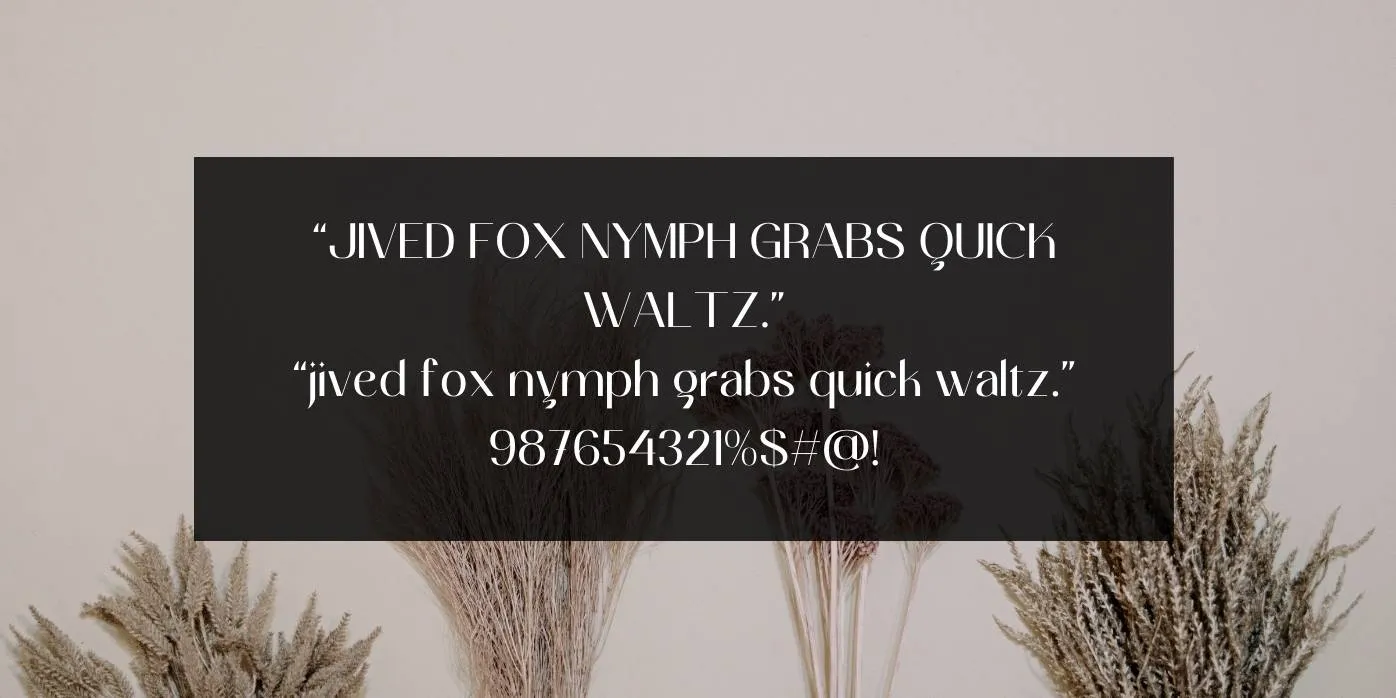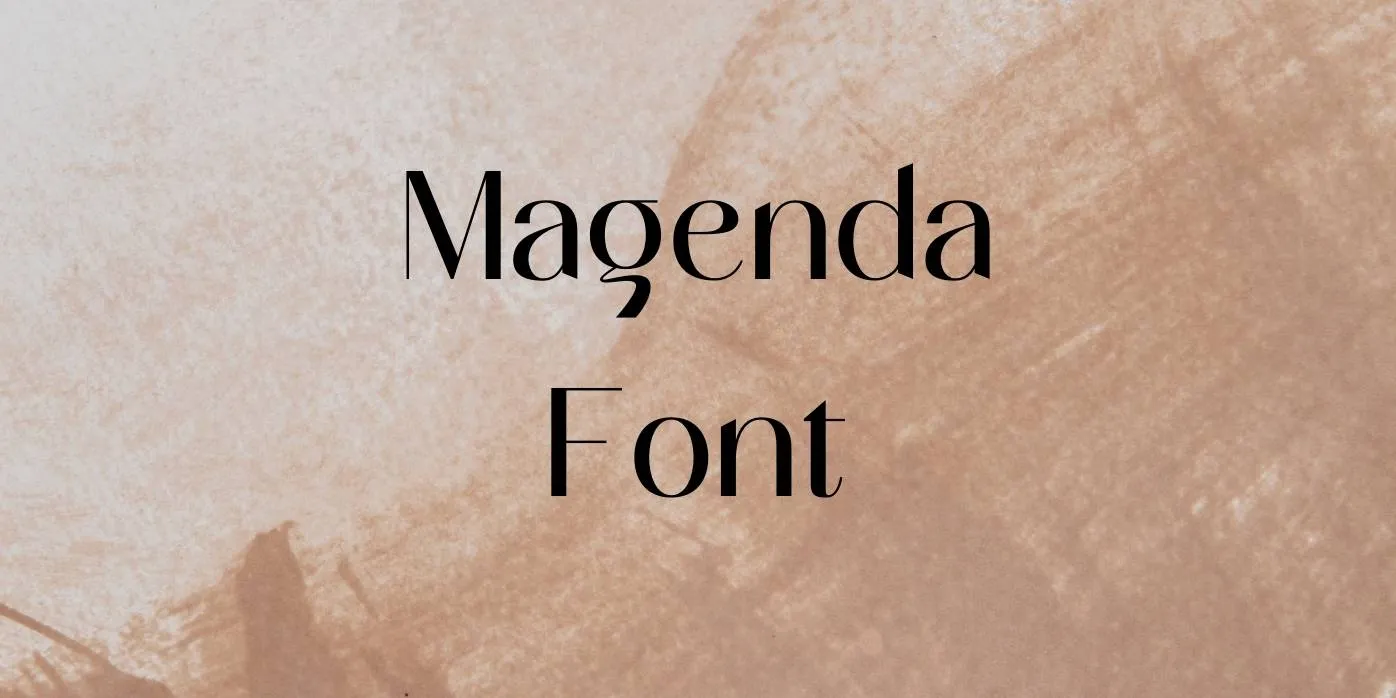
Magenda Font
Today, we are consulting on a famous typeface named Magenda Font.  Studio Pengecoran designed this stylish font family. This typeface belongs to the sans serif family. This family is best for headlines, branding, and other display purposes. This sans serif family has a total of 12 weights.
You can use somatic font which has the same style and characters as this one. This font has a very stylish look. The letters are thin and tall. The strokes have a unique thick-thin contrast.